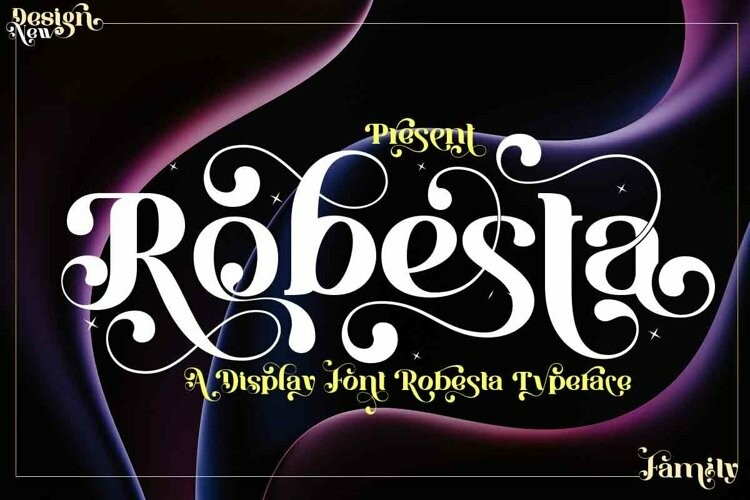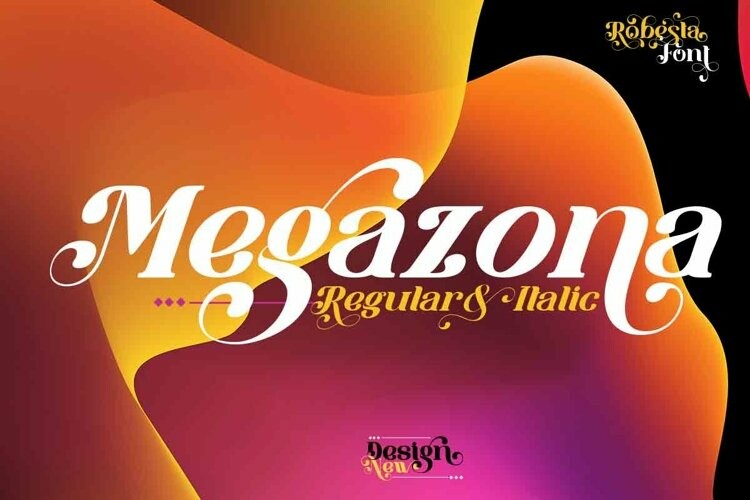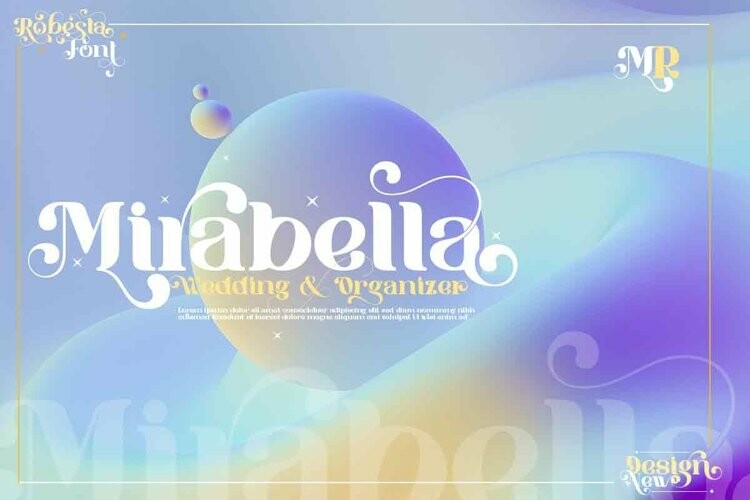
Robesta Font
Robesta FontRobesta is an incredibly beautiful font, with a luxurious and elegant appearance, making this the font of your best choice,
with several alternates that you can combine, as well as League which is your newest style, this font has been coded with PUA which means you can easily use automatic glyphs,
Robesta is a font that emphasizes dashing and daring, making this font look very striking and classy branding style, and with the combination of italics that we include in it for your design choices to be more creative with this font